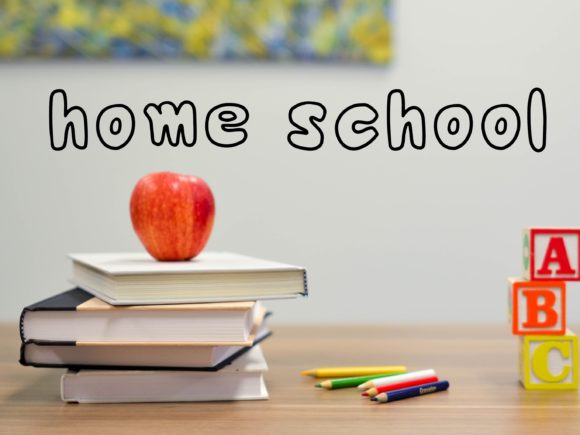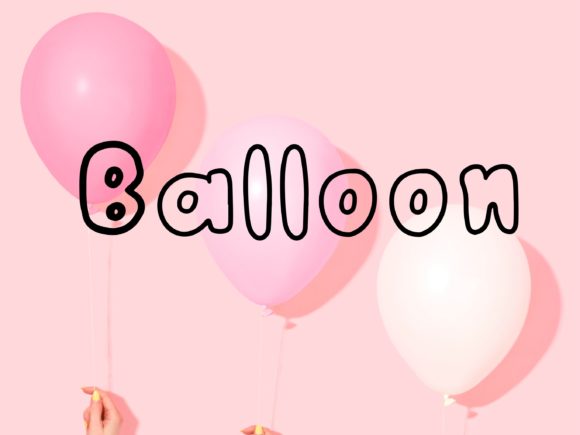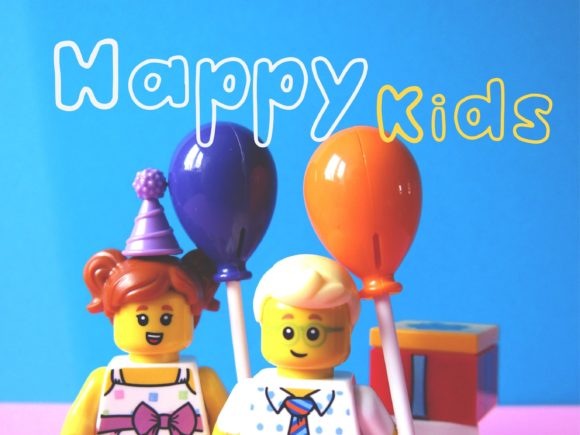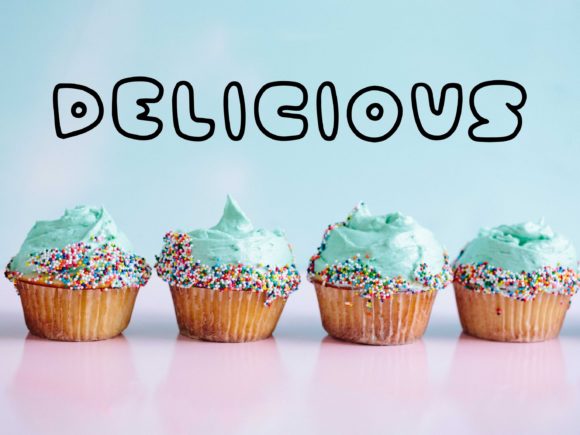
When Creativity Pops: The Magic of Bubble Font
Have you ever been brainstorming a new project, and suddenly, a spark of inspiration hits you? You see it in your mind’s eye – a colorful, whimsical, and utterly unique design that makes you smile. That’s the moment when creativity truly comes alive, and that’s exactly what the Bubble Font is designed to capture.
Bubble Font is a display font that embodies the essence of fun, quirkiness, and authenticity. Its enchanting characters are carefully crafted to bring any creative idea to life, making it a valuable addition to any designer’s toolkit. Whether you’re working on a children’s book, a social media campaign, or a brand identity, Bubble Font is the perfect way to add a touch of personality and whimsy to your design.
Bubble Font Key Features
- Font Family: Bubble Font offers a unique and playful font family with multiple styles and weights.
- Unique Characteristics: The font features a distinctive bubble-like shape with rounded edges, giving it a friendly and approachable feel.
Bubble Font Review
Overall, I’d say the Bubble Font is a fun and playful addition to any design project. ✨ Here are some of its strengths:
- Easy to use: The font is straightforward to implement, and its simplicity makes it a great choice for beginners.
- Variety of styles: Bubble Font comes in multiple styles, from casual to elegant, giving designers plenty of options to choose from.
- Highly customizable: The font’s rounded edges and simple structure make it easy to customize and manipulate to fit the designer’s vision.
However, like any font, the Bubble Font has its limitations. ⚠️ Here are a few things to keep in mind:
- Limited legibility: The font’s rounded edges can make it difficult to read at smaller sizes or in certain contexts.
- May not be suitable for formal designs: The Bubble Font’s playful nature might not be the best fit for formal or professional projects.
- Not ideal for complex text: The font’s simplicity can make it challenging to use for complex or multi-line text.
Overall, I’d recommend the Bubble Font for casual, creative projects or as a fun accent font. However, for more formal or complex designs, you may want to consider other options.
Bubble Font is commonly used for:
- Creating playful and whimsical text effects.
- Adding visual interest to social media posts and graphics.
- Designing children’s books and educational materials.
Alternatives to Bubble Font for Designers
Bubble Font is a unique and playful font style that is often used in children’s books, educational materials, and other applications where a whimsical feel is desired. However, there are several alternatives that can achieve a similar look and feel, while offering different characteristics and uses. Here are a few options:
Pacifico is a script font that features flowing lines and a relaxed feel. It is often used in invitations, wedding stationery, and other applications where a romantic or elegant look is desired. Compared to Bubble Font, Pacifico has a more refined and sophisticated feel, making it suitable for more formal occasions.
Great Vibes is a modern script font that features a mix of cursive and handwritten elements. It is often used in social media graphics, advertising, and other applications where a fun and energetic feel is desired. Compared to Bubble Font, Great Vibes has a more dynamic and expressive feel, making it suitable for applications where a bold statement is needed.